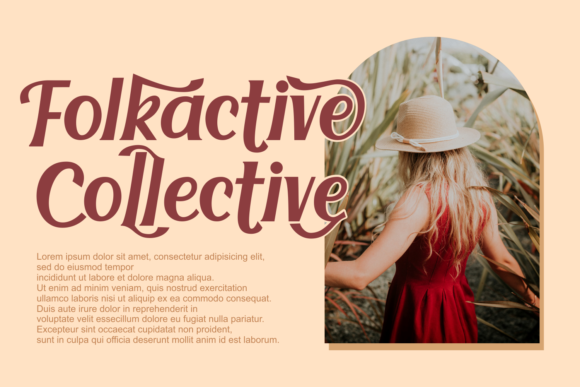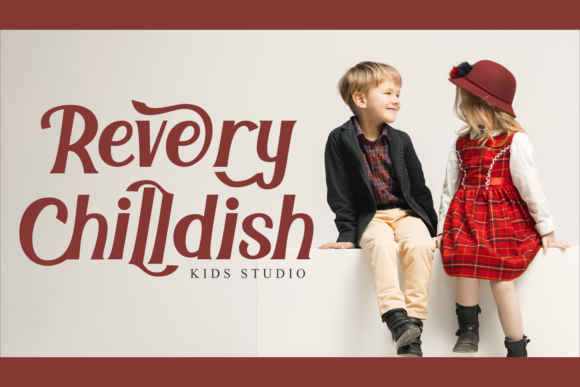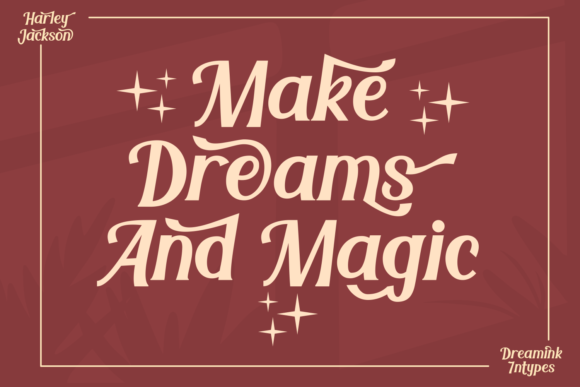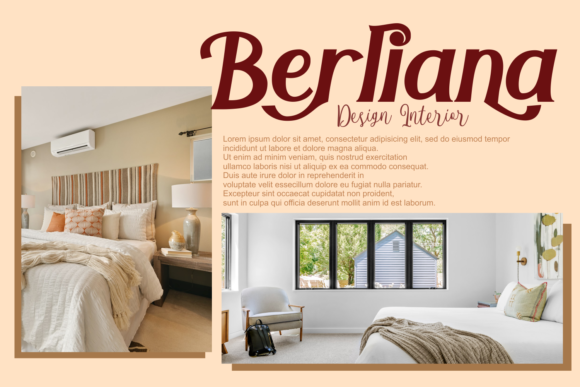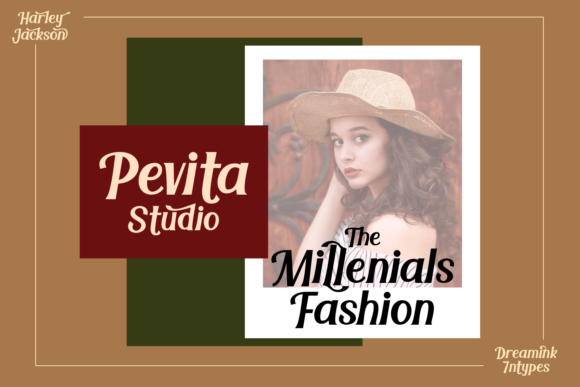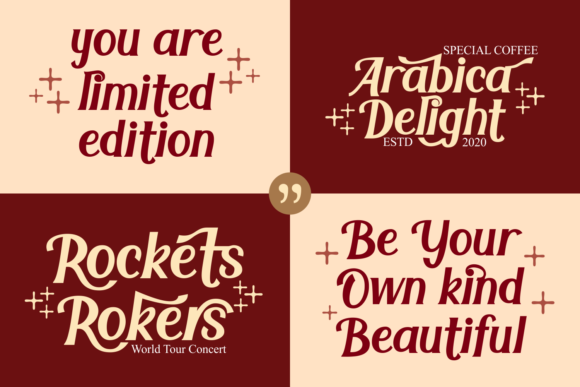
Introducing Harley Jackson Font: Elevate Your Designs with Elegance and Whimsy
In the world of typography, fonts play a pivotal role in bringing creativity and vision to life. Among the myriad of fonts available, the Harley Jackson Font stands out as a beacon of modernity, elegance, and playfulness. This comprehensive article delves into the characteristics, uses, and benefits of the Harley Jackson Font, a modern, refined, and elegant display font that has captured the hearts of designers and crafters alike.
The Essence of Harley Jackson Font
Harley Jackson Font is described as a sweet, all-round, and flexible handwritten font. Its design embodies warmth, romance, and a jolly spirit, making it an ideal choice for projects that require a touch of sophistication and charm. This font is not just a typeface; it’s an artistic tool that can transform your project ideas into real works of art.
Key Features of Harley Jackson Font
- Modern and Refined: Harley Jackson Font boasts a contemporary design that feels fresh and current. Its refined features make it suitable for high-end projects, editorials, and branding that requires a sleek look.
- Elegant Display Font: As a display font, Harley Jackson is crafted to make a statement. It’s perfect for headings, titles, and any prominent text that needs to capture attention with elegance.
- Handwritten with a Personal Touch: The font’s handwritten nature gives it a personal and approachable feel. It’s versatile enough to be used in a variety of contexts, from formal to informal projects.
- Warm, Romantic, and Jolly: The warmth and romance in Harley Jackson Font’s design make it perfect for projects that aim to evoke emotions. Its jolly spirit adds a playful touch, making it suitable for designs that need to be fun and engaging.
Exploring Endless Variations
One of the most exciting aspects of the Harley Jackson Font is its flexibility and the endless variations it offers. Designers and crafters can have fun experimenting with this beautiful font, playing around with different sizes, colors, and arrangements to create unique and captivating designs. Whether you’re working on wedding invitations, branding materials, packaging, or digital content, Harley Jackson Font provides the versatility needed to bring your creative vision to life.
Who Can Benefit from Harley Jackson Font?
The Harley Jackson Font is a valuable asset for a wide range of professionals and enthusiasts, including:
- Graphic Designers: Looking for a stylish and versatile font to elevate their designs.
- Branding Experts: Seeking elegant and modern typography to strengthen brand identities.
- Crafters: Engaged in creating personalized items, such as invitations, cards, and DIY projects.
- Digital Content Creators: Aiming to add a touch of sophistication and whimsy to their online content.
Tips for Using Harley Jackson Font Effectively
To maximize the potential of the Harley Jackson Font, consider the following tips:
- Mix and Match: Combine Harley Jackson Font with other fonts to create contrast and hierarchy in your designs.
- Play with Colors: Experiment with different colors to find the perfect match that enhances the font’s elegance and playfulness.
- Adjust Size and Weight: Take advantage of the font’s flexibility by adjusting its size and weight to suit different design elements.
The Harley Jackson Font is a remarkable addition to any designer’s or crafter’s toolkit. Its modern, refined, and elegant design, coupled with its warm, romantic, and jolly spirit, makes it an excellent choice for a wide range of projects. By exploring the endless variations and possibilities offered by this beautiful font, you can create stunning works of art that leave a lasting impression. So, have fun with Harley Jackson Font, and let your creativity shine!